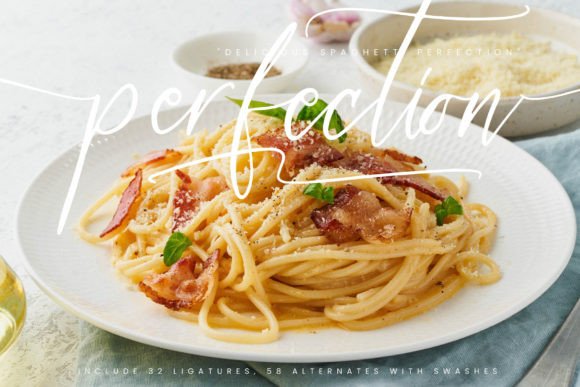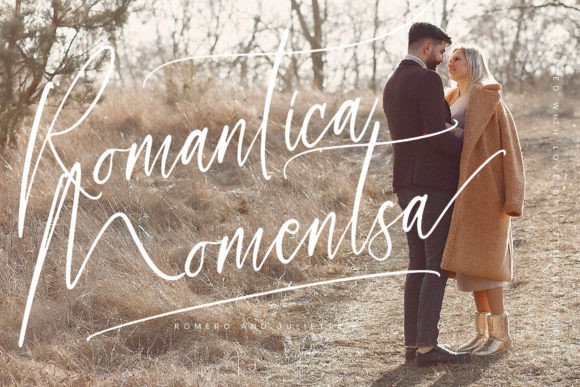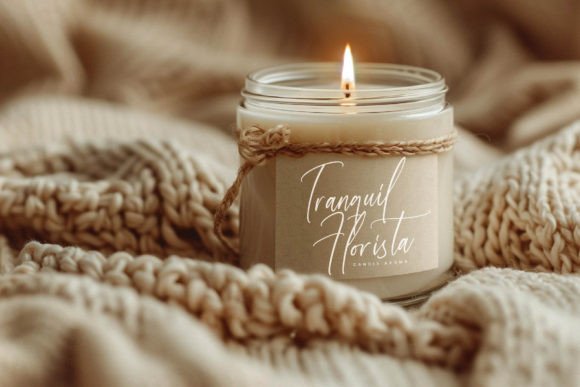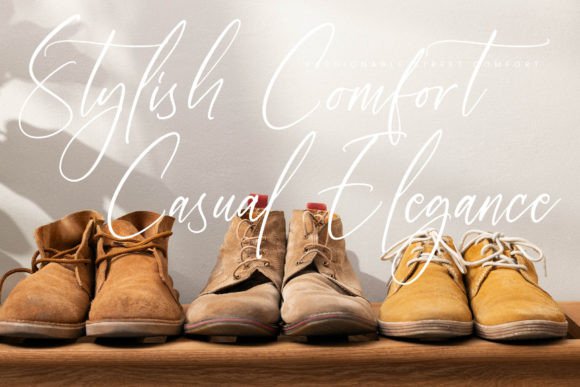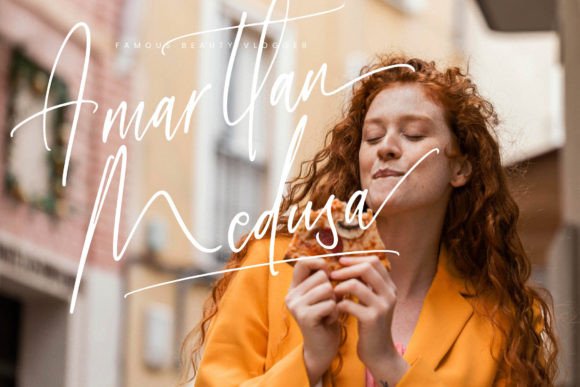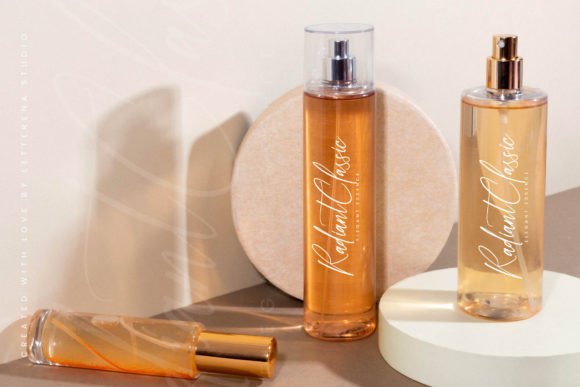
Introduction to Marstime Brighters Font
Have you ever been working on a creative project and felt like it’s missing that extra something special – that touch of luxury and elegance that sets it apart from the rest? As designers, we’ve all been there, searching for that perfect design resource to elevate our work. That’s where the Marstime Brighters Font comes in – a stunning, high-quality script font that’s perfect for adding a touch of sophistication to any project.
Developed by Letterena, this beautiful font is a must-have for any designer looking to add a little extra luxury to their work. With its modern, elegant feel, the Marstime Brighters Font is ideal for logos, branding projects, and all sorts of creative endeavors. Whether you’re working on a high-end product packaging design or a special event invitation, this font is sure to make your project stand out.
- Unique, modern design ideal for creative projects and design resources.
- Perfect for designers seeking a modern, eye-catching font for their next project.
- Supports a wide range of languages, making it a versatile design resource.
Honest Review: Marstime Brighters Font
As a designer, I’m always on the lookout for high-quality design resources to elevate my creative projects. The Marstime Brighters Font is a font that caught my eye, and I’m excited to share my honest review with you.
- ✨ Unique and quirky design that adds a touch of personality to any project
- ✨ High-quality graphics that render well on both light and dark backgrounds
However, I do have some limitations to mention:
- ⚠️ Limited character set, which may be a concern for designers who need to use this font extensively
- ⚠️ Not suitable for projects that require a professional, corporate feel
Overall, I’m impressed with the Marstime Brighters Font. Its quirky design and high-quality graphics make it a great addition to any design resource library. While it may not be suitable for every project, it’s definitely a great choice for creative projects that need a bit of personality.
The Marstime Brighters Font is perfect for a variety of creative projects, including branding, marketing materials, and social media graphics. Its high quality and versatility make it a valuable addition to any design toolkit.